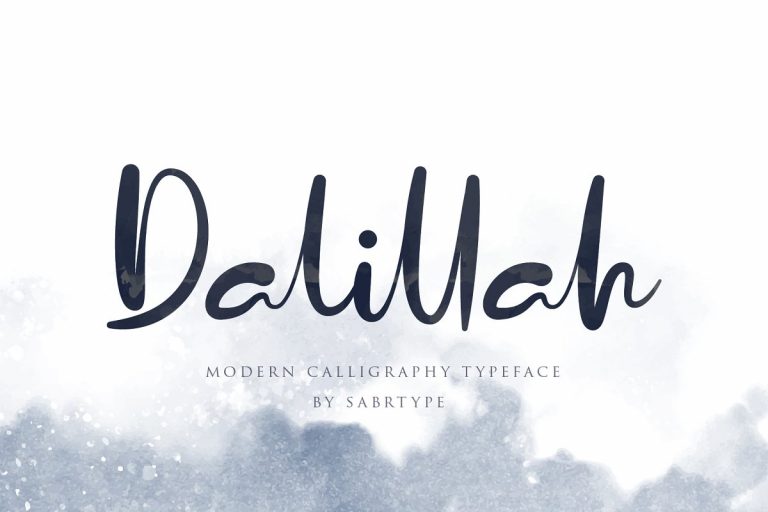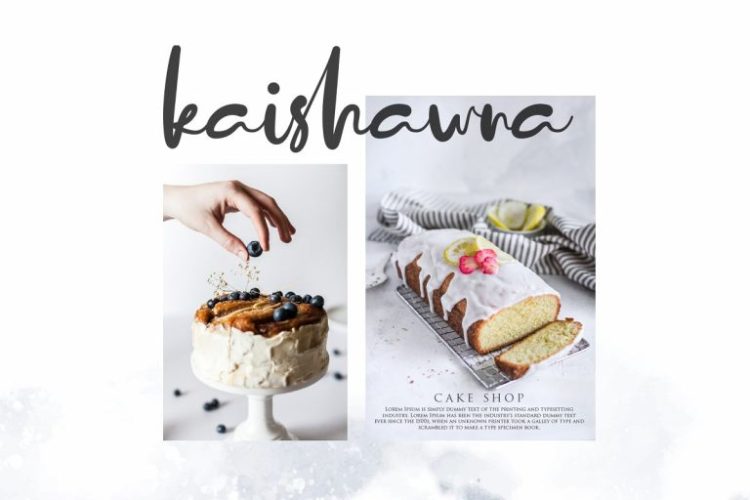
Dalillah Fonts
There are script fonts that decorate a page — and then there are script fonts that transform it entirely. Dalillah Fonts belongs to the second, rarer category: a lush ornamental script of sweeping curves, rich calligraphic character, and extraordinary decorative depth that brings the opulence of Eastern artistic traditions into contemporary luxury design with breathtaking results.
Dalillah’s visual language draws from the ornamental richness of classical Arabic and Persian calligraphic traditions — the sweeping, generous curves, the layered decorative complexity, the sense that every letterform contains a world of visual interest within its structure. The Latin script construction has been deeply informed by these traditions, resulting in letterforms that feel simultaneously familiar and exotic, contemporary and timeless. The swash alternates and ornamental extensions allow designers to create compositions of extraordinary decorative richness that cannot be achieved with conventional Western script typography.
Luxury bridal fashion designers and couture wedding brands working with luxury bridal typography find Dalillah creates the ornamental magnificence that the highest-end wedding market demands. The font perfectly serves brands drawing visual inspiration from Middle Eastern, Mediterranean, and South Asian aesthetic traditions — spice brands, luxury food imports, artisan cosmetics with cultural heritage branding, and destination wedding companies. High-end perfume brands and premium home fragrance businesses rooted in Eastern traditions find Dalillah the most authentic typographic voice for their brand stories.
Collector-edition packaging, museum shop products, and any luxury design context where decorative richness and cultural depth are core values will find Dalillah delivers an unmatched level of ornamental sophistication.